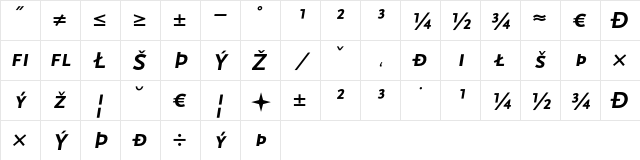
ScalaSans Caps Exp Bold Italic
Design Context for ScalaSans Caps Exp Typeface
ScalaSans Caps Exp takes a measured approach to typography — its balanced proportions and neutral character make it a reliable workhorse for both digital and print work. The dynamic lean of this cut emphasises speed and emphasis in any layout. The heavy weight commands attention and anchors typographic hierarchies.
Pro Tip: Use ScalaSans Caps Exp for emphasis, pull quotes, and subheadings where its slanted energy can add rhythm to the layout.